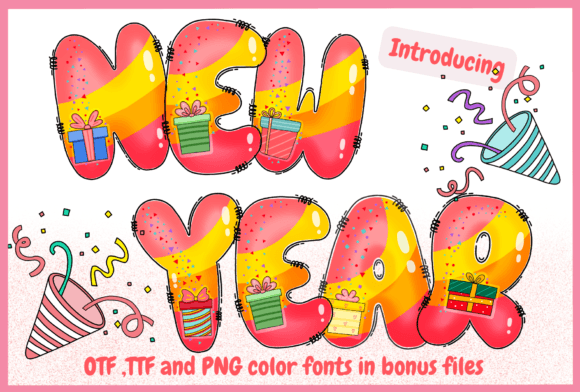
Introducing the "New Year Font" - the ultimate font for fashion brands seeking to make a bold statement! Created by Itme_digitalart, this vibrant and festive typeface is designed to capture the spirit of celebration and renewal.
With its colorful and playful design, the New Year Font features New Year-specific elements such as party confetti and gifts, injecting a touch of joy and excitement into your designs. Imagine the impact it will have on your New Year's Eve party invitations, banners, and greeting cards!
This font is all about adding a pop of color and fun to your holiday projects. It will make your text sparkle and shine, truly captivating your audience. Whether you're designing for the fashion industry or simply want to stand out, the New Year Font is your go-to choice.